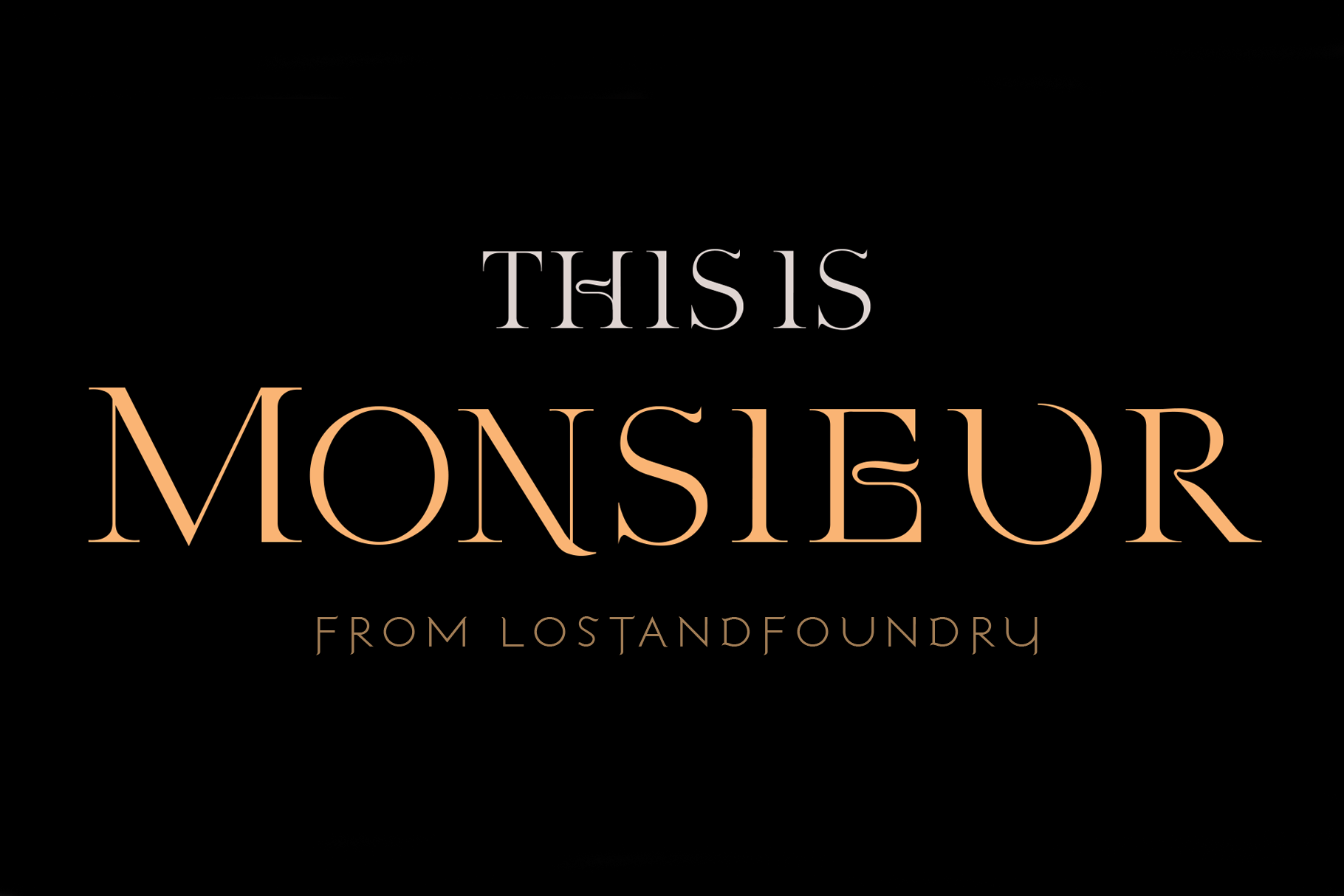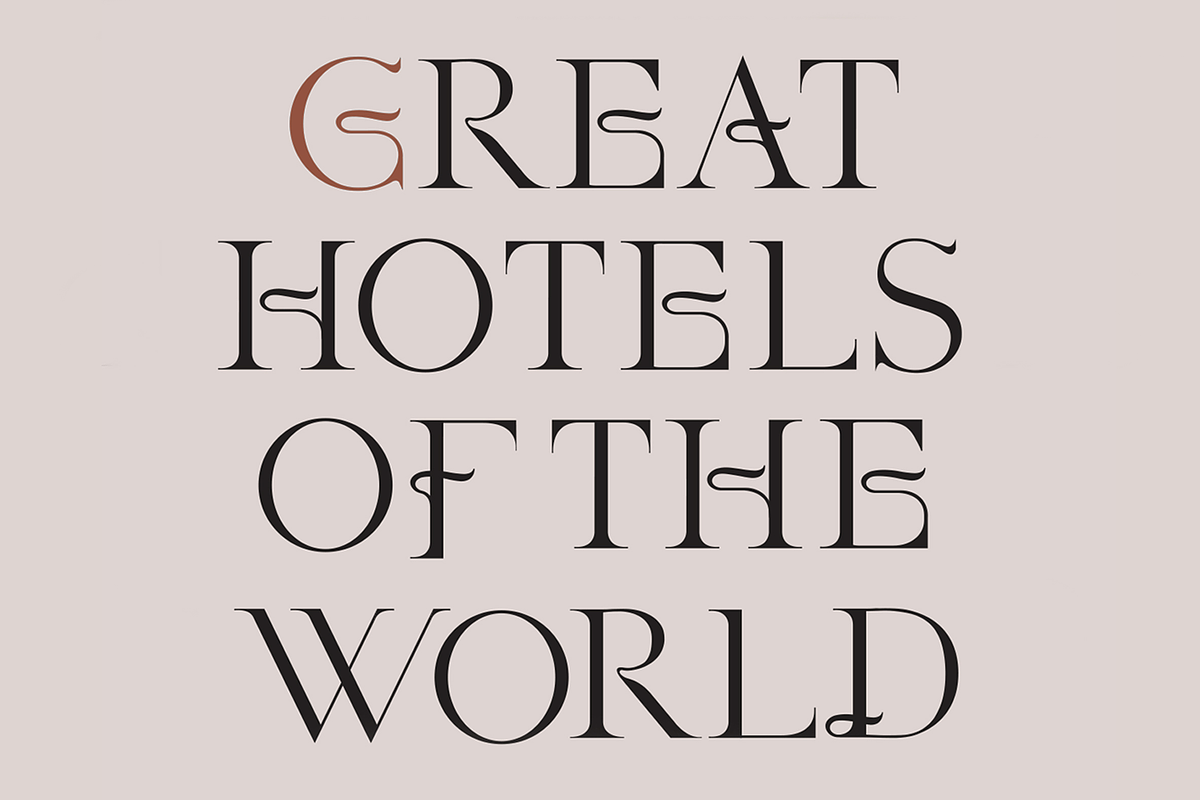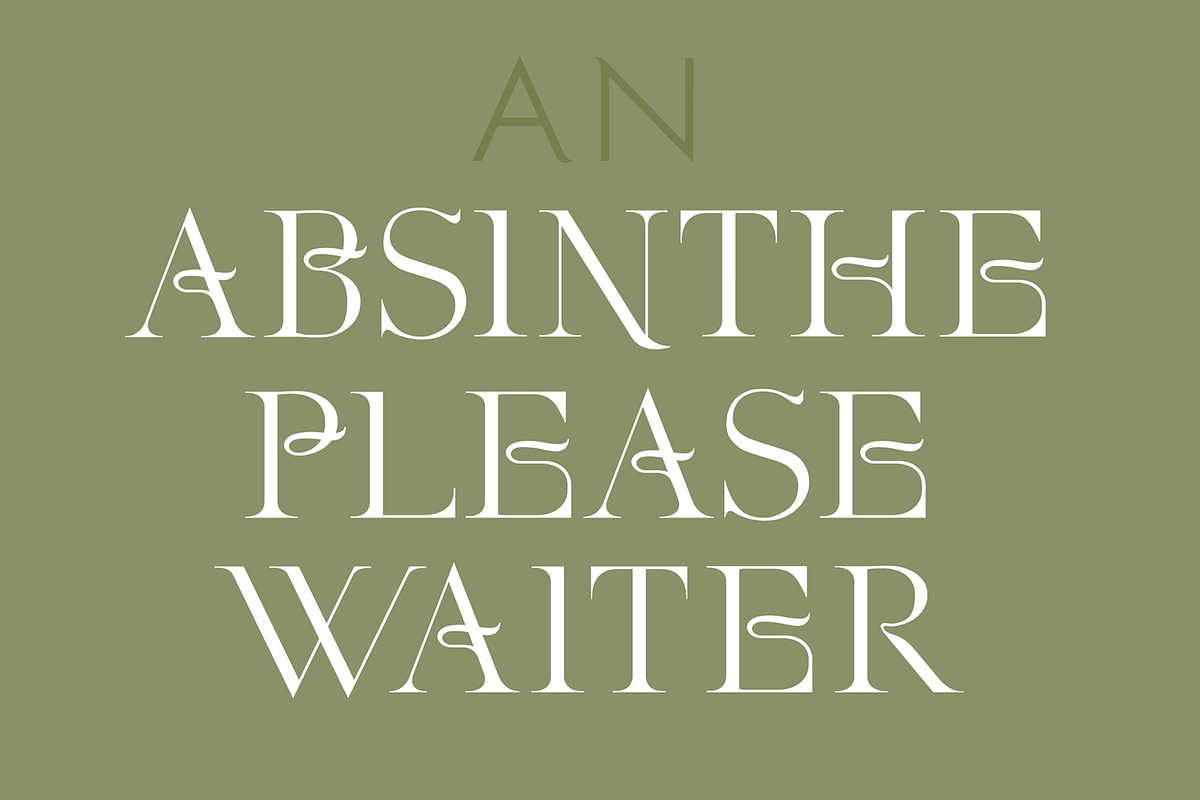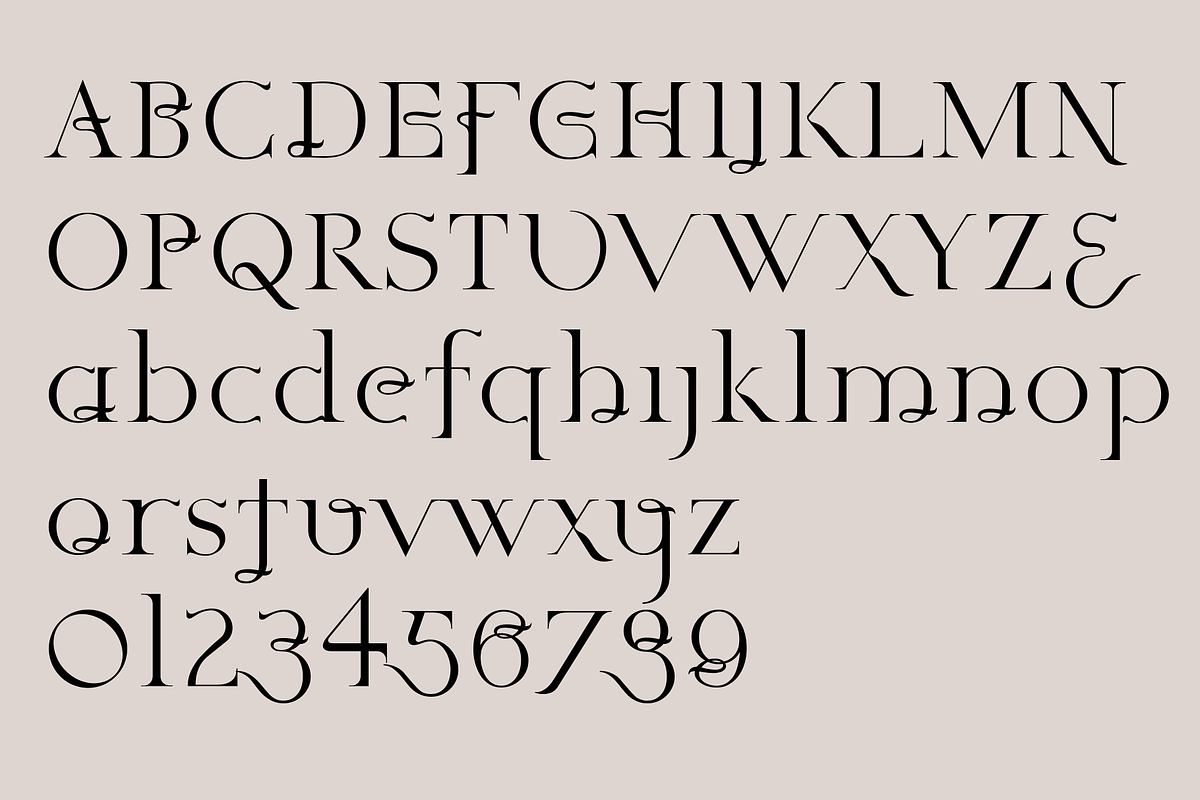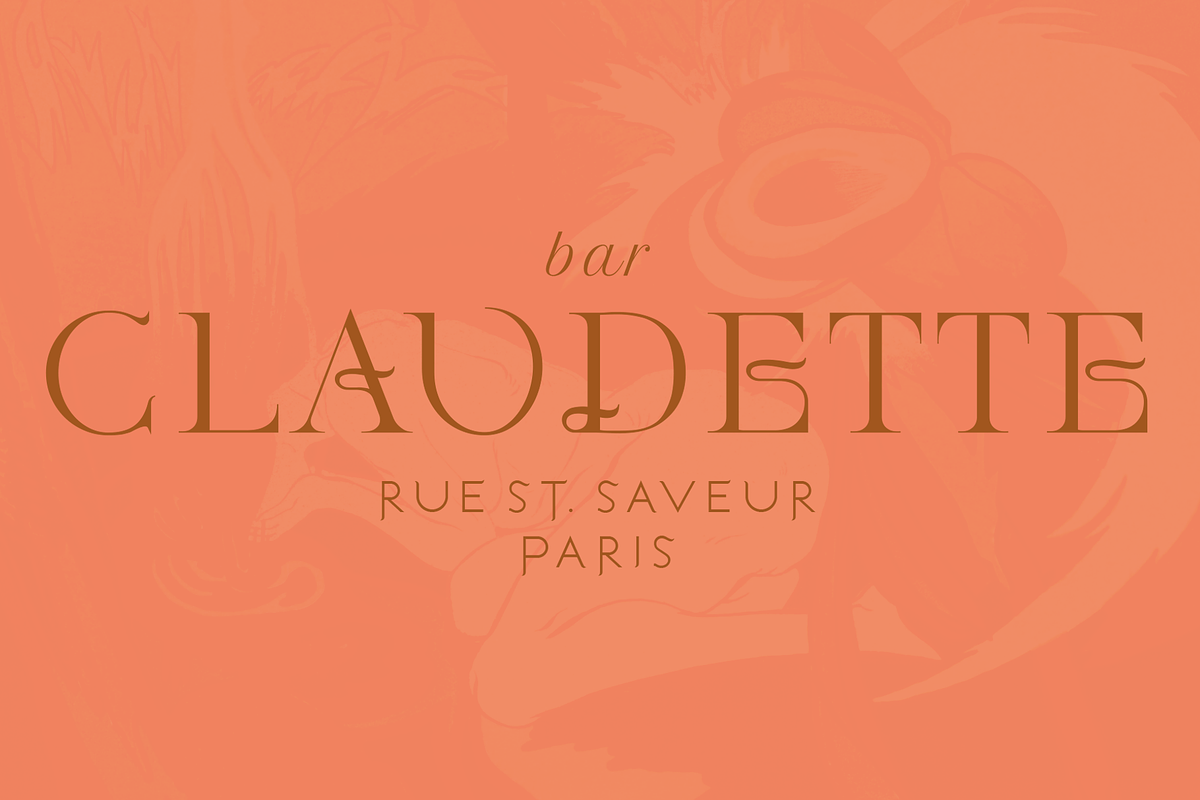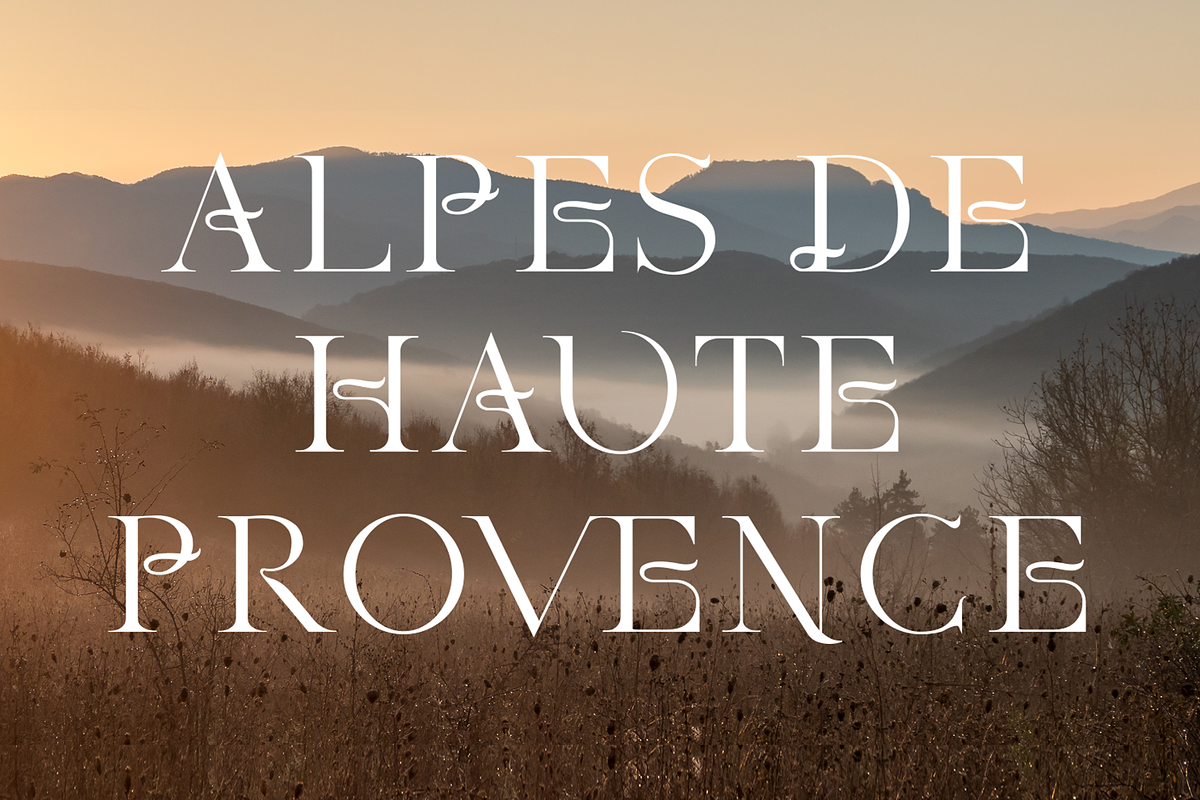
Monsieur. Chic serif font
Monsieur is a beautiful new font for designers from LostandFoundry. Think upon this typeface more as a cocktail infused with aromatics, as opposed to a traditional serif font, which is akin to just wine. Floral design touches imbue Monsieur with a unique 'Art Nouveau style' which will bring character and identity to your design projects.
This font is intoxicating when used in your headlines, titles, logos, packaging designs, wedding designs and small amounts of text. And online, in your websites, blogs, vlog titles, Youtube creator titles and social media post titles.
Monsieur comes in 2 weights and is a must-have addition to any serious designer's font library and supports French, German and other European languages.